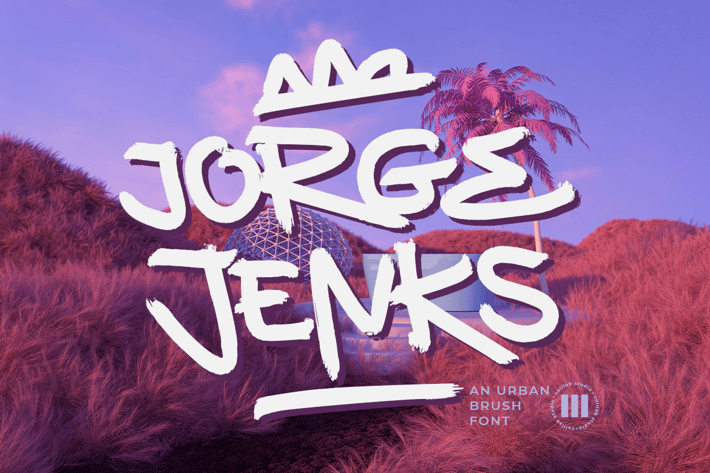
Jorge Jenks - An Urban Brush Font
If you are looking for an urban brush font that is versatile but also allows for more formal designs and has a touch of futuristic to it, you shouldn’t look any further.
We present to you – Jorge Jenks. One of our new fonts. Created by Pablo Impallari, who is really the man behind most of Out There Type’s super successful fonts, yet this one is even better, if you can believe it! Jorge Jenks will take your designs to the next level.
- Ligatures & stylistics alternates
- Swashes